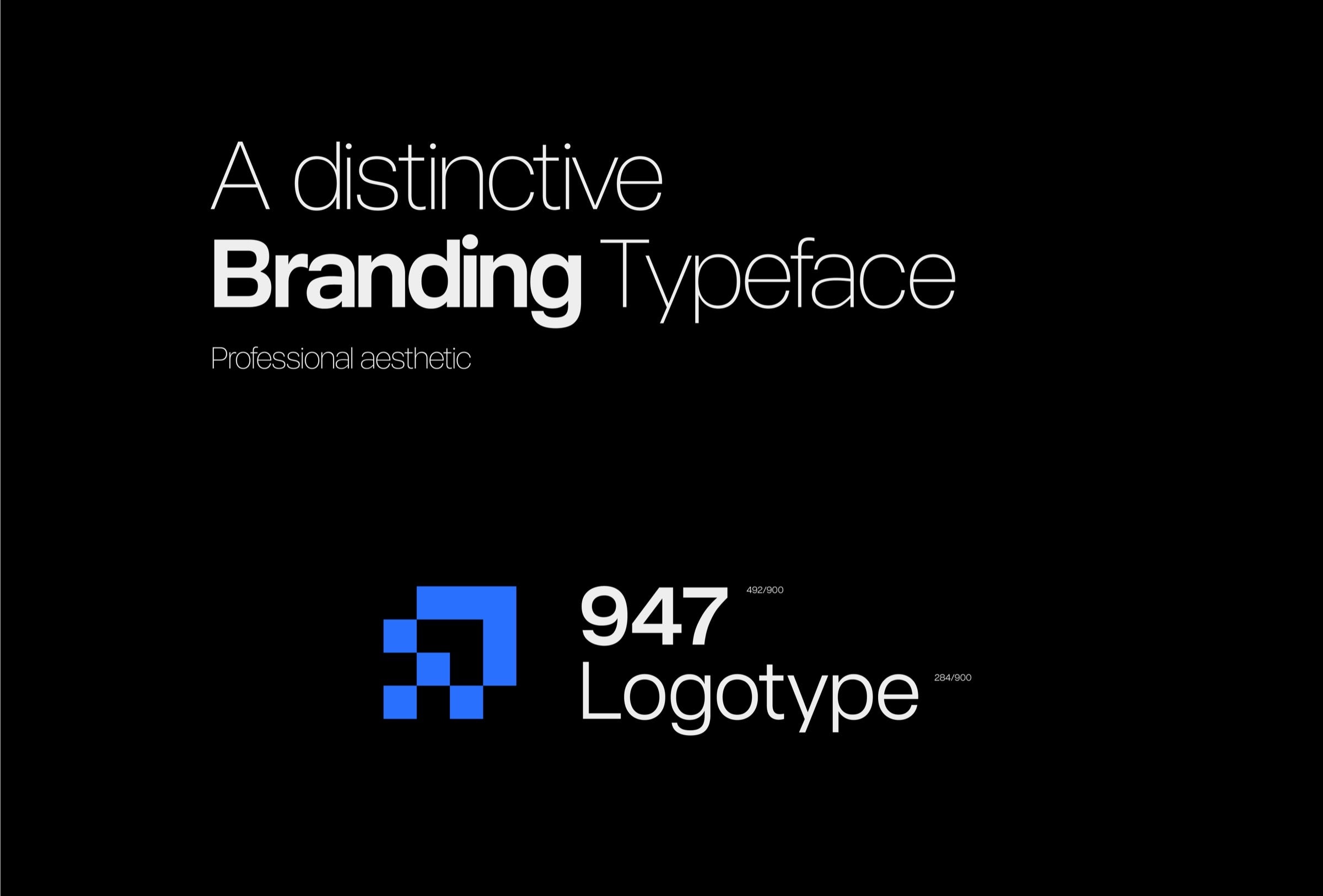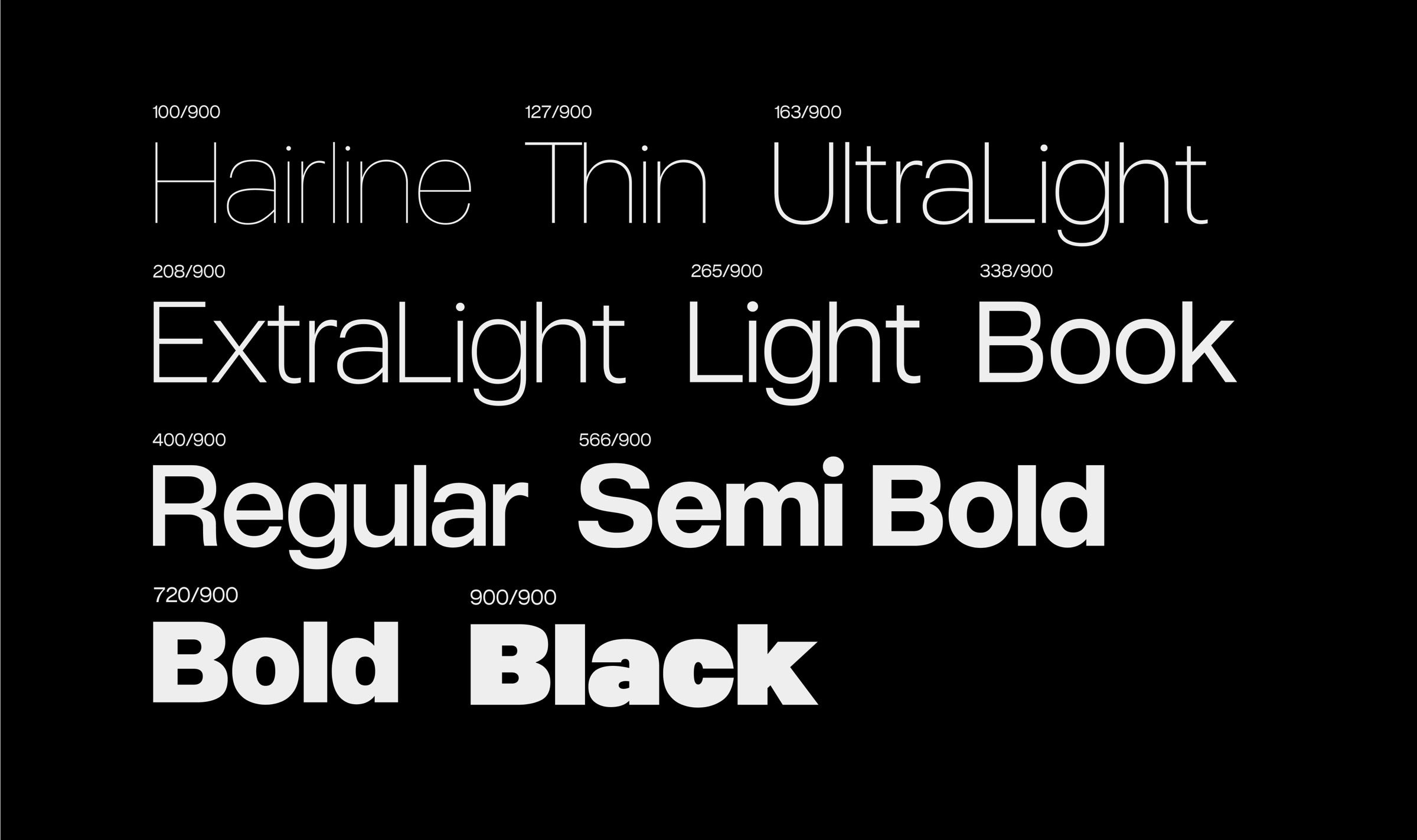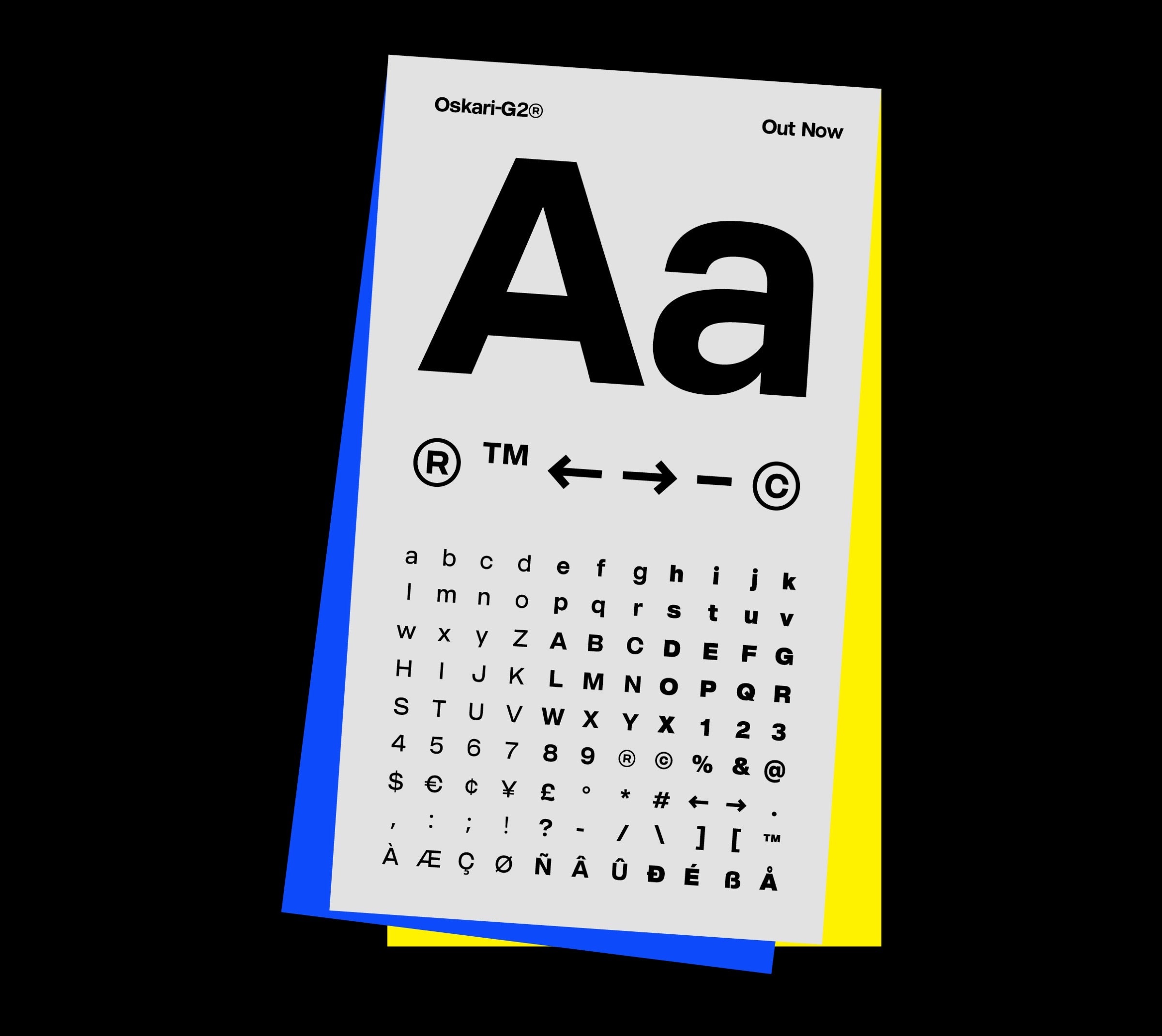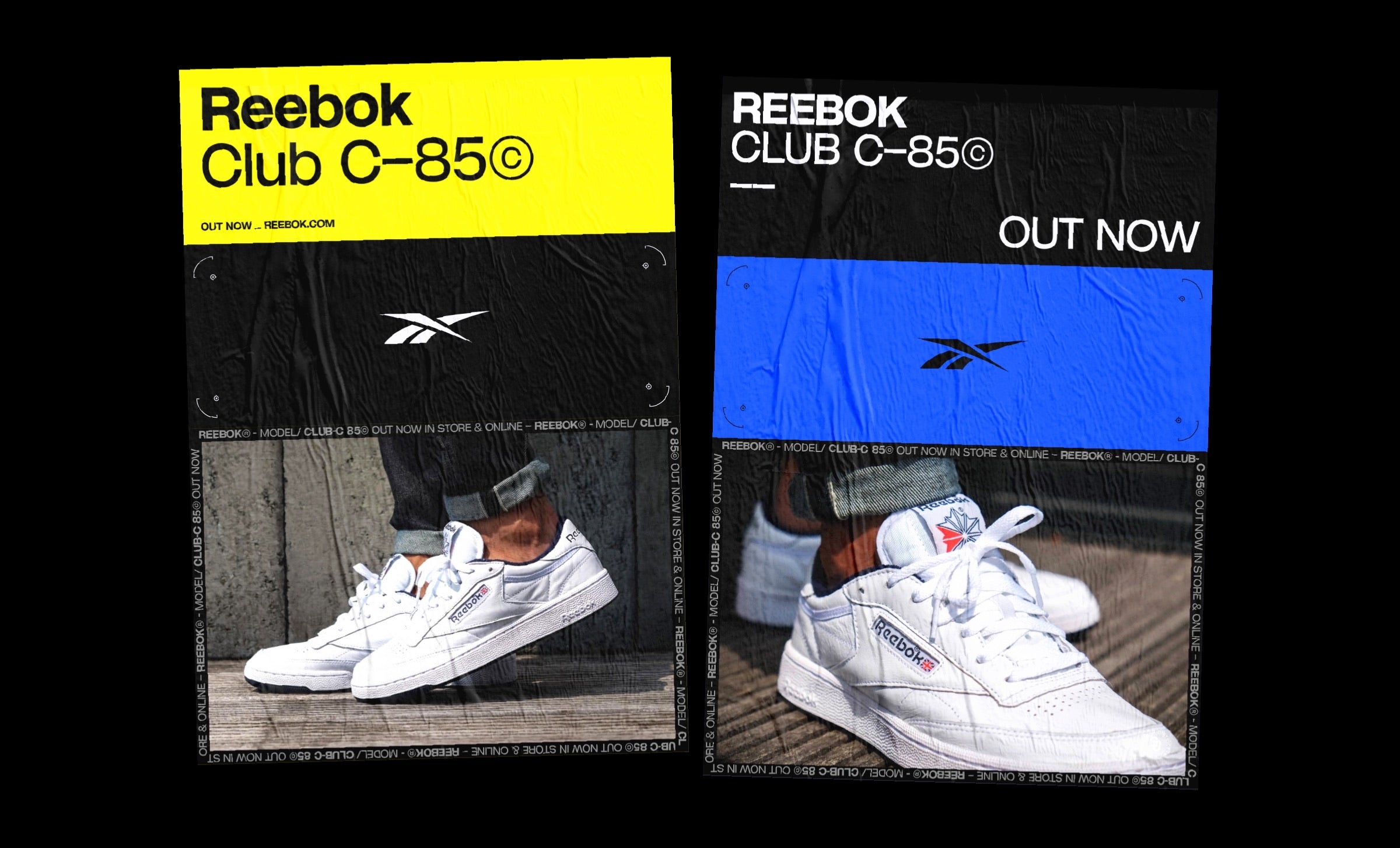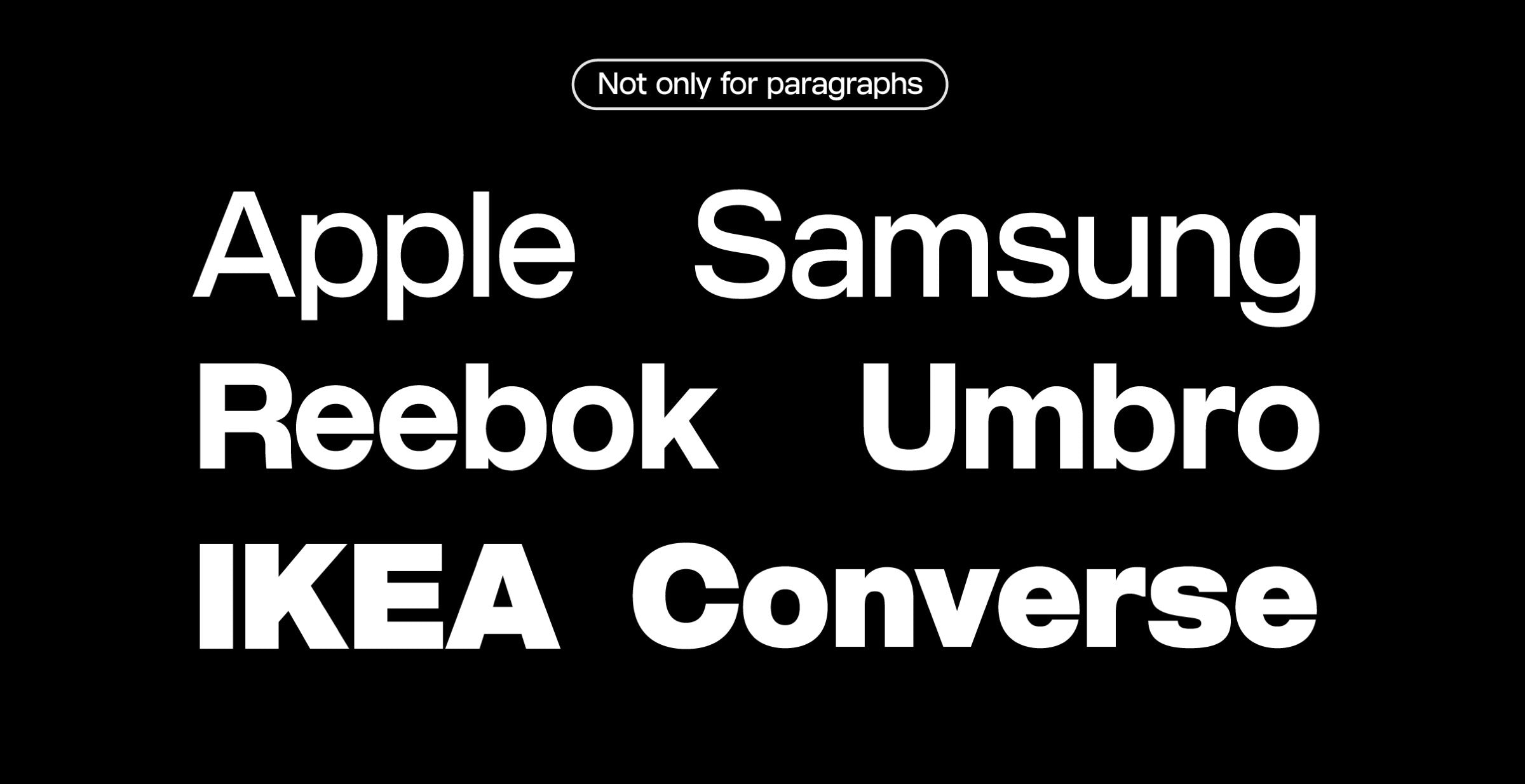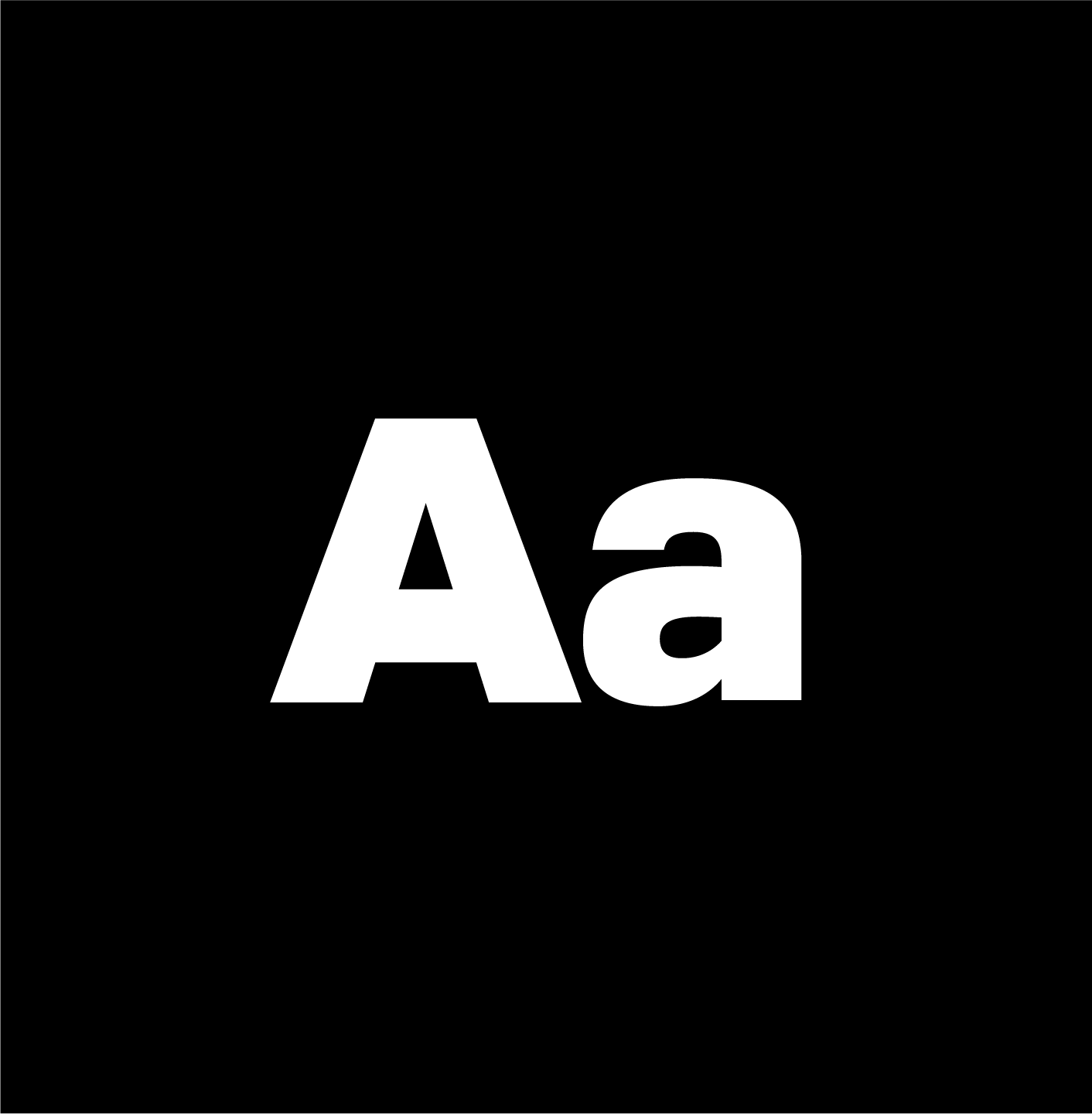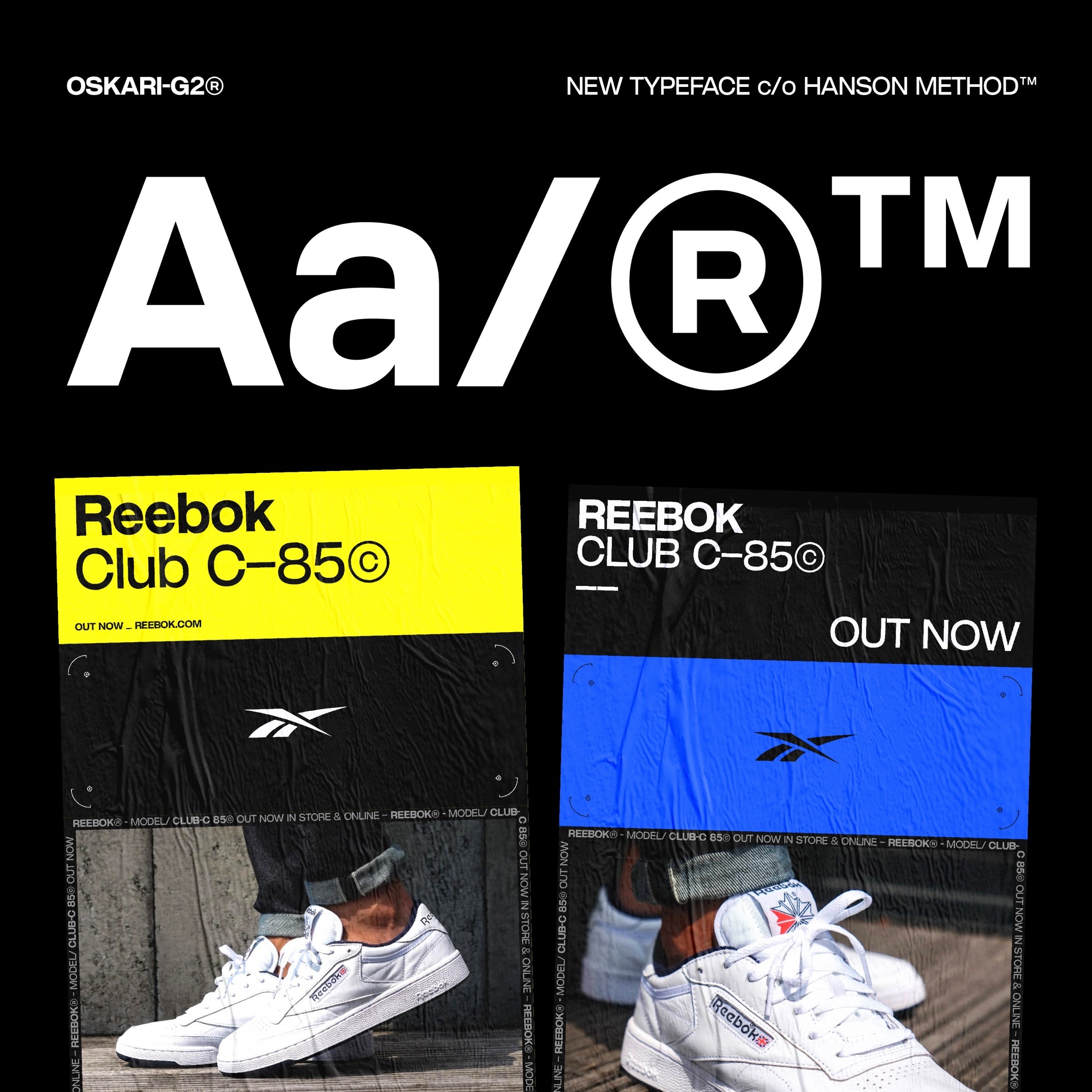
Oskari-G2® Variable Typeface
A clean variable sans with enough range to animate through — weight interpolation is smooth end to end, which is what makes it work in motion.
• Variable axis
• 186 glyphs
• EU language support